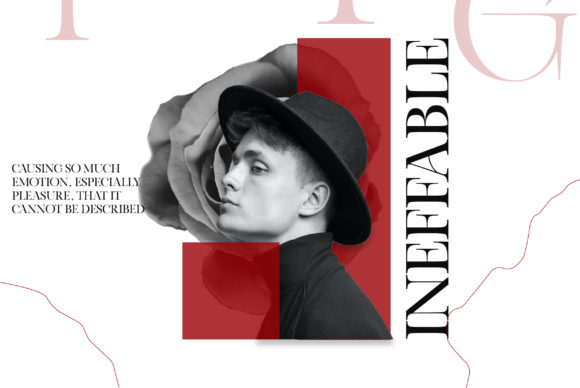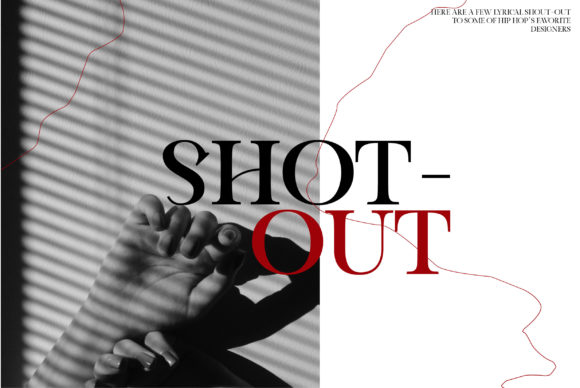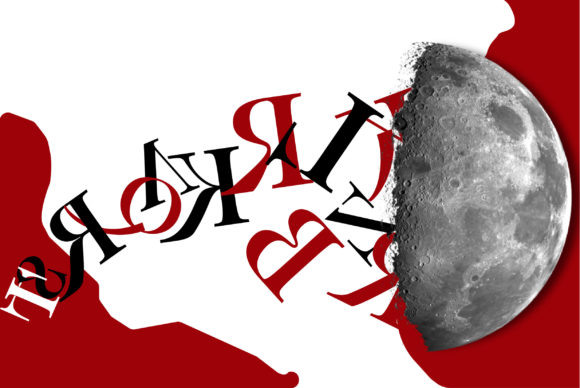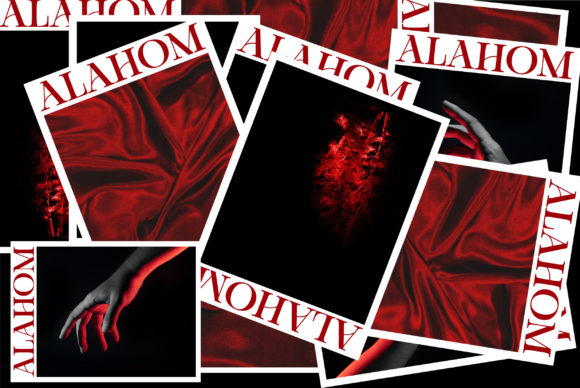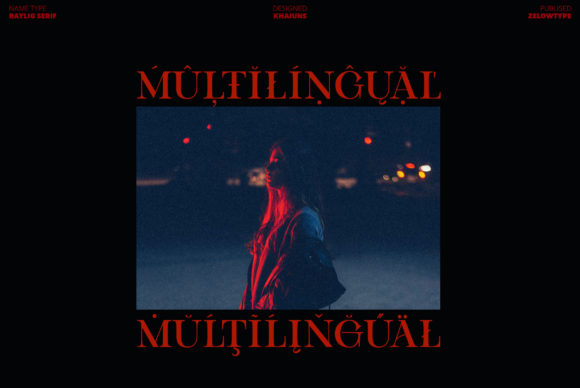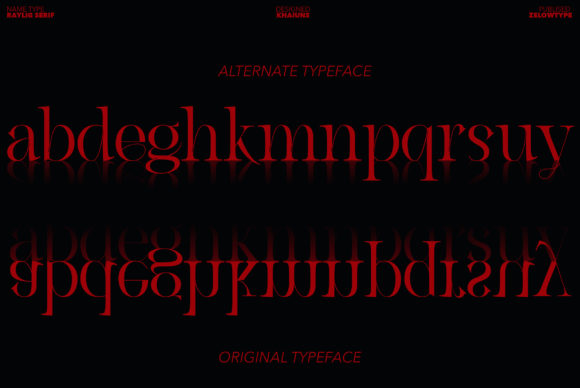
Introduction to Raylig Light Font
As a designer, you know that sometimes the perfect font can make all the difference in bringing your creative project to life. I still remember the moment I stumbled upon the Raylig Light Font, and I knew I had to have it. Its elegant, thin lettering and delicate serif design caught my eye, and I couldn’t wait to see what amazing designs I could create with it.
What I love about the Raylig Light Font is its versatility and high quality. Whether you’re working on a branding project or a beautiful typography piece, this font is sure to impress. And with its transparent background, you can easily place it on any design resource without any issues. The best part? It’s PUA encoded, making it easy to access all of the glyphs and swashes. With the Raylig Light Font, you can take your designs to the next level and make them truly spectacular.
- High-quality font designed for creative projects, ideal for use as a design resource.
- Transparent background and seamless scalability make it perfect for use in digital and print media.
- Unique characteristics: elegant and modern design, perfect for use in branding, logos, and typography-based creative projects.
Honest Review: Raylig Light Font
I recently stumbled upon the Raylig Light Font and I must say, it’s been a game-changer for my design projects. As a designer, I’m always on the lookout for high-quality fonts that can elevate my work and make it stand out.
- ✨ High-quality design: The Raylig Light Font has a clean and modern aesthetic that works perfectly for various creative projects.
- ✨ Transparent background: The font comes with a transparent background, making it easy to use in different design scenarios.
- ⚠️ Limited styles: While the font is beautiful, it’s only available in a few styles, which might limit its usage in certain design scenarios.
- ⚠️ Not suitable for all projects: The font’s design might not be suitable for projects that require a more traditional or formal look.
Overall, I’m impressed with the Raylig Light Font and would definitely recommend it as a valuable resource for designers. Its high-quality design, transparent background, and free download make it a great addition to any design toolkit.
The Raylig Light Font is a high-quality design resource that can elevate your creative project. It’s perfect for designers, artists, and anyone looking for a unique font to add a touch of sophistication to their work.
To get the most out of the Raylig Light Font, experiment with different font sizes, styles, and colors to create a unique look that suits your design needs.
The Raylig Light Font is perfect for a variety of creative projects, including logos, business cards, posters, and more. It’s also great for use in social media graphics, presentations, and other visual communications.